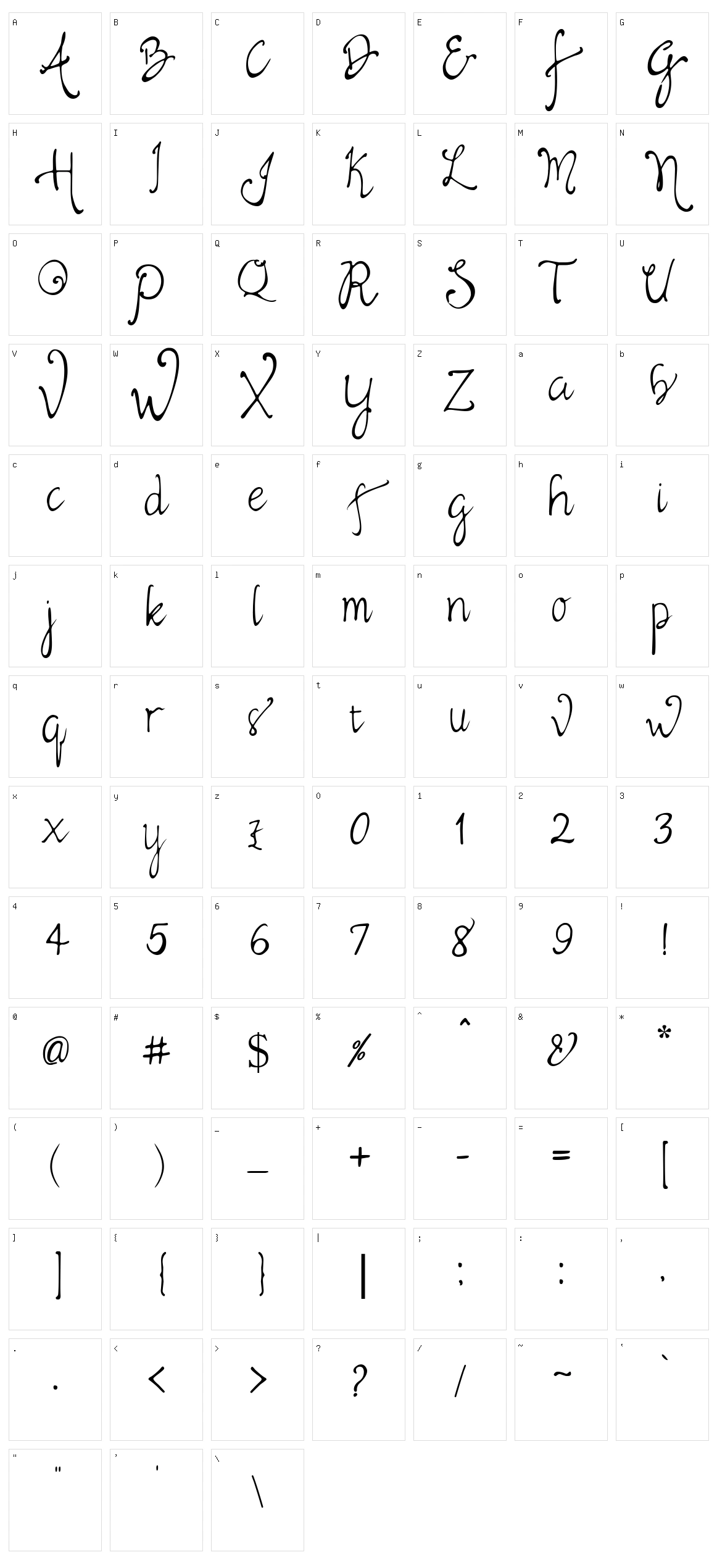
The free font Beverly is carefully designed by Ummu Humaira, showcasing a thoughtful balance of creativity and usability and falls under the Script font style. When you download the ZIP file, it contains only 34.56 KB of font files, making it lightweight and quick to download. Please review the license details below to understand permitted usage and distribution rights. If license information is not available, we recommend using this font for personal projects only or contacting the author directly for commercial usage permissions.